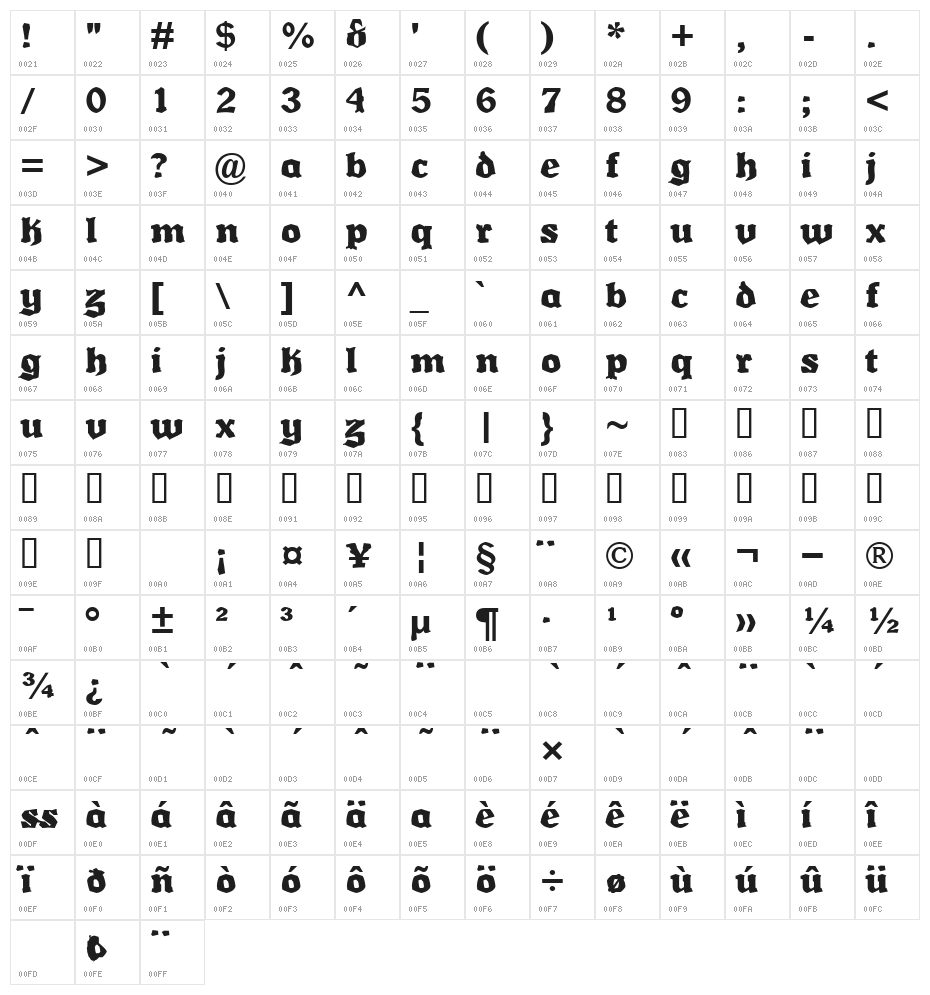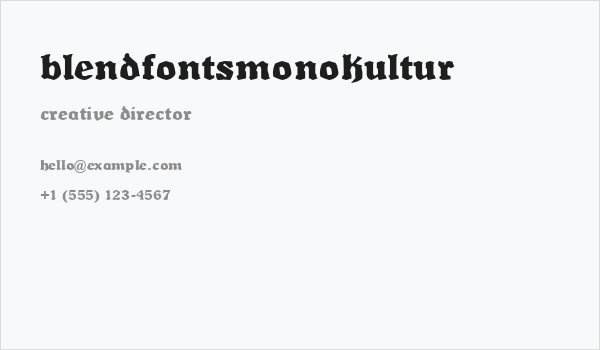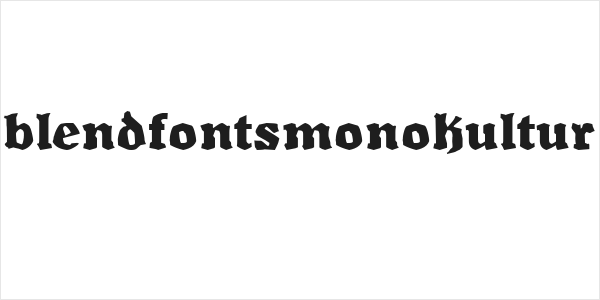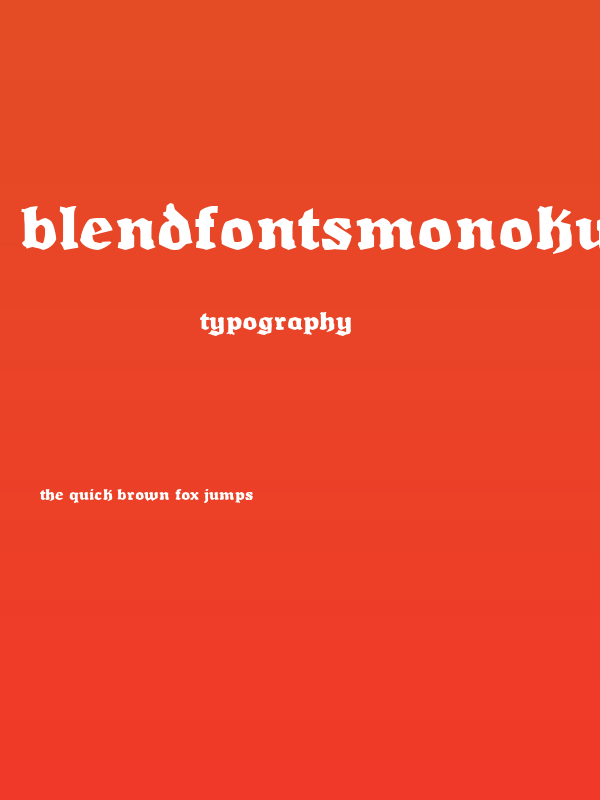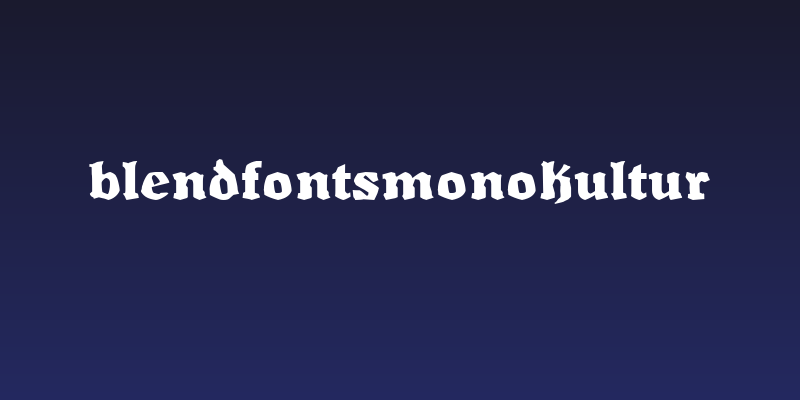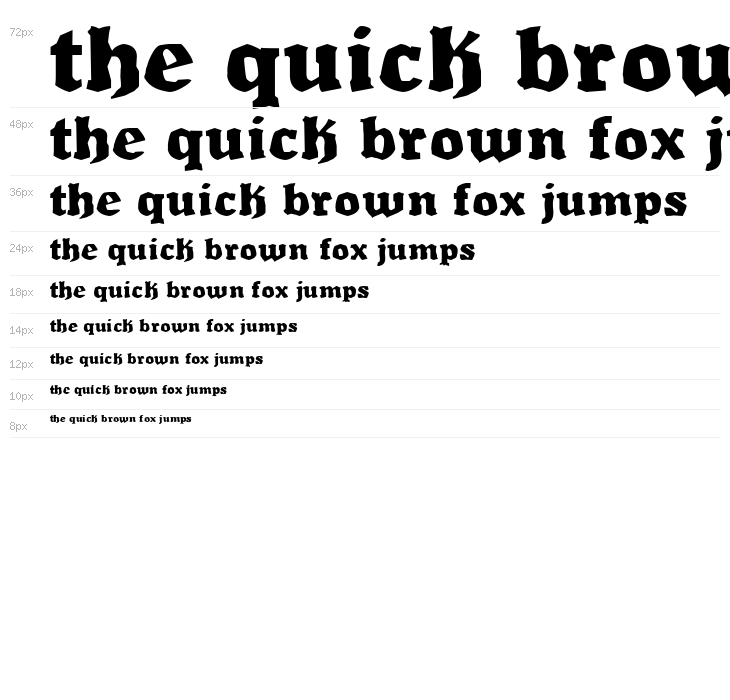
BlendfontsMonokultur Font
BlendfontsMonokultur Description
This font features a bold and striking design with a strong presence. The characters are crafted with sharp, angular edges and a distinct blackletter style, reminiscent of traditional Gothic scripts. The uppercase and lowercase letters maintain a consistent weight, contributing to a cohesive and impactful appearance. The numerals and special characters are equally bold, ensuring readability and uniformity across all text. This font's unique style makes it ideal for projects that require a dramatic and historical touch.
| Proposed Projects | Ideal for branding, posters, book covers, and any design requiring a historical or dramatic flair. |